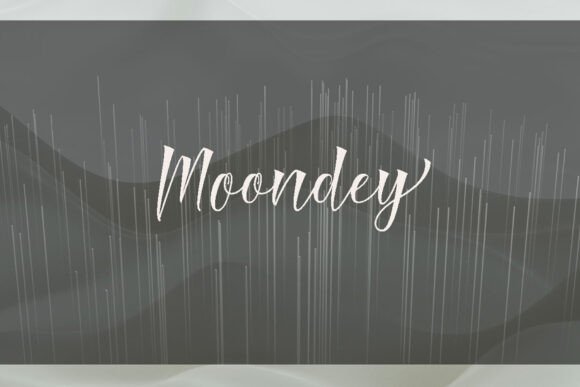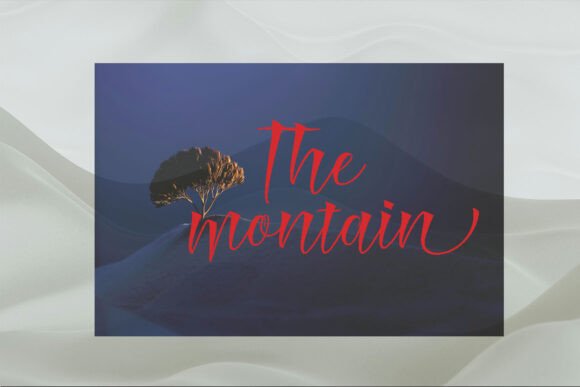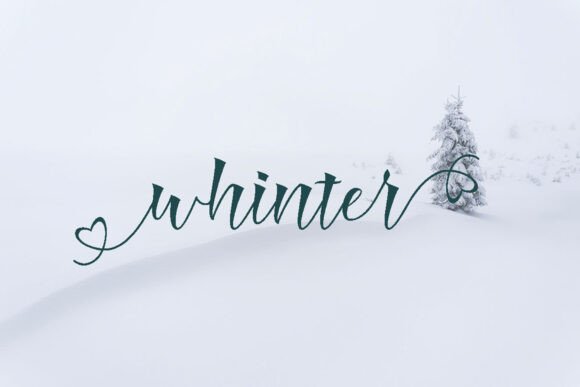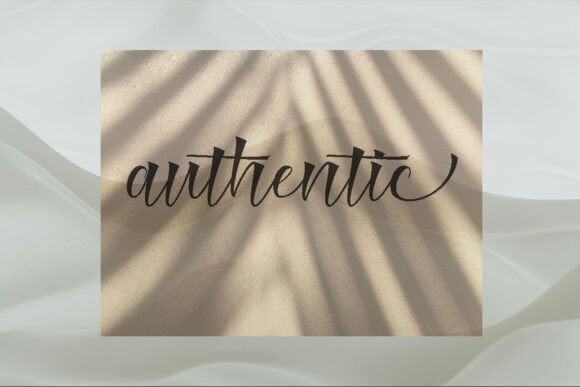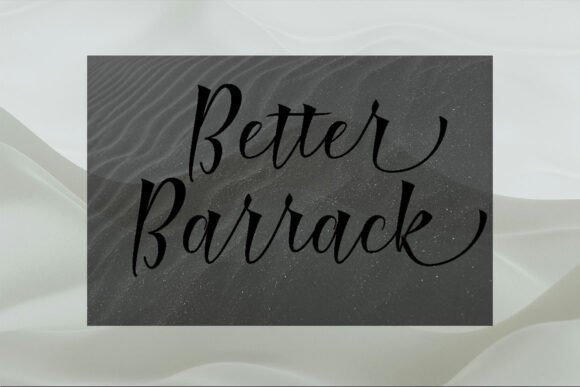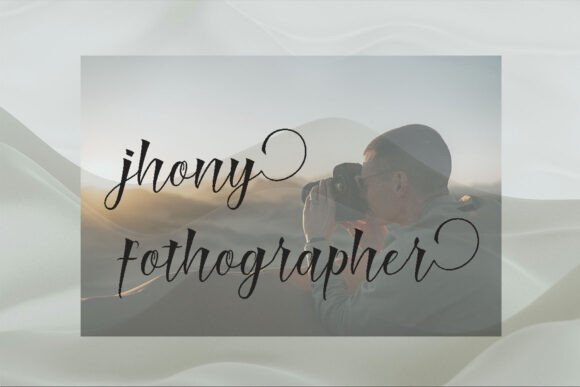
Banthe Font: Elevate Your Designs with Elegance and Sophistication
In the world of typography, fonts play a crucial role in conveying the tone and personality of a design. For designers and crafters seeking a typeface that exudes modern elegance with a touch of femininity, Banthe Font is an exceptional choice. This handcrafted font combines modern and elegant styles, making it perfect for a wide range of design applications.
The Essence of Banthe Font
Banthe Font is a beautifully crafted typeface that strikes a balance between modern sophistication and classic elegance. Its unique design ensures that it stands out in any project, while its feminine and graceful touch adds a layer of warmth and approachability. This font is meticulously designed to cater to the needs of designers who seek a versatile and stylish typeface for their creative projects.
One of the key advantages of Banthe Font is its incredible versatility. It is suitable for a myriad of design needs, including:
- Logos and Branding: Create a lasting impression with a logo that embodies elegance and sophistication.
- Invitations and Stationery: Add a touch of class to your invitations, greeting cards, and stationery.
- Wedding Designs: Make your wedding designs, such as wedding invitations and ceremony programs, truly unforgettable.
- Social Media and Advertisements: Elevate your social media posts and advertisements with a font that captures attention.
- Printed Quotes and Product Packaging: Give your printed quotes and product packaging a professional and stylish look.
- Labels and Photography: Use Banthe Font for labels and watermarks to add a touch of elegance to your photography.
- Special Events and Magazine Layouts: Create stunning layouts for special events and magazine articles.
Why Choose Banthe Font?
Banthe Font offers several benefits that make it a preferred choice among designers and crafters:
- Unique and Handcrafted: Each letterform is carefully crafted to ensure uniqueness and character.
- Feminine and Elegant: The font’s design exudes a feminine and elegant vibe, perfect for projects that require a touch of sophistication.
- Modern Appeal: Banthe Font’s modern style ensures that your designs look contemporary and fresh.
- Easy to Read: Despite its elegant design, Banthe Font remains highly legible, making it suitable for both headings and body text.
Tips for Using Banthe Font
To make the most of Banthe Font, consider the following tips:
- Pair with Complementary Fonts: Combine Banthe Font with simpler fonts for body text to create visual interest.
- Experiment with Colors: While Banthe Font looks stunning in black and white, don’t hesitate to experiment with colors that match your brand’s palette.
- Adjust Letter Spacing: For a more customized look, adjust the letter spacing to suit your design needs.
Banthe Font is a versatile and elegant typeface that can elevate your designs to new heights. Its unique blend of modern and classic styles, combined with its feminine touch, makes it an ideal choice for a wide range of projects. Whether you’re a designer, crafter, or DIY enthusiast, Banthe Font is sure to become a valuable addition to your typography arsenal.